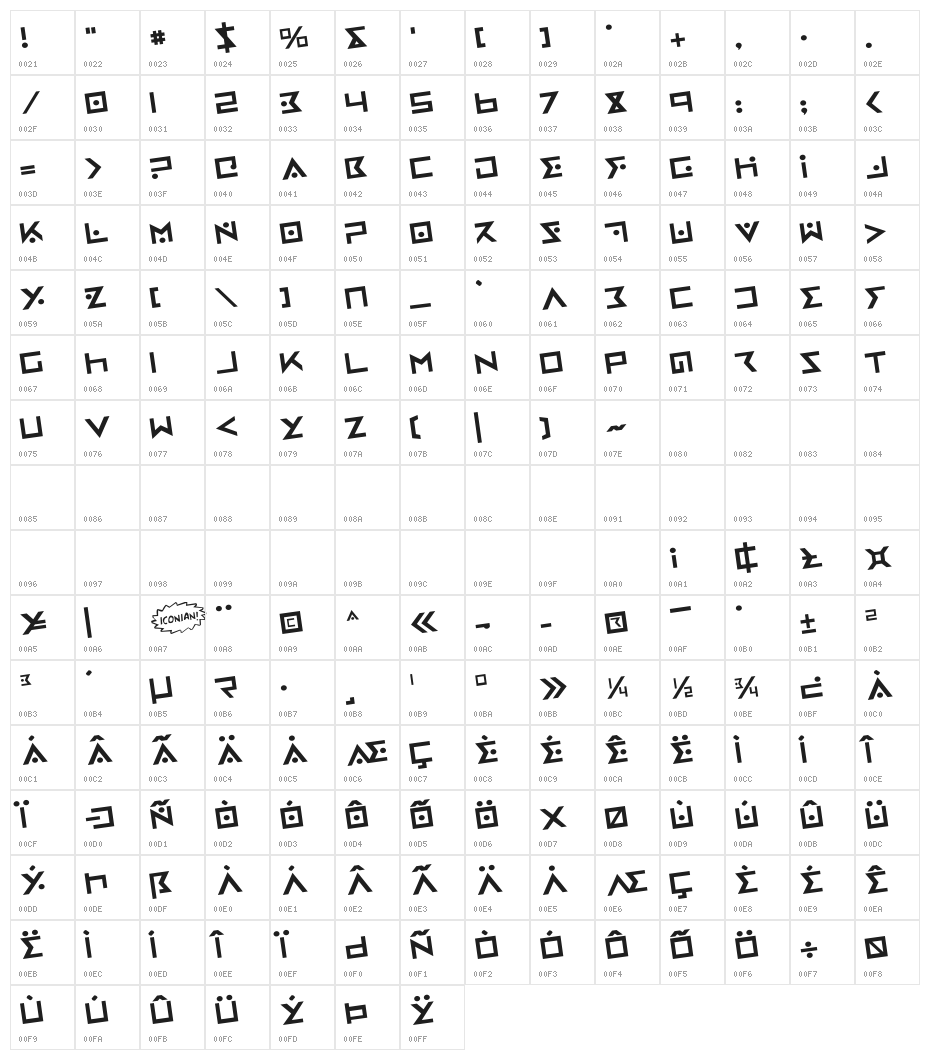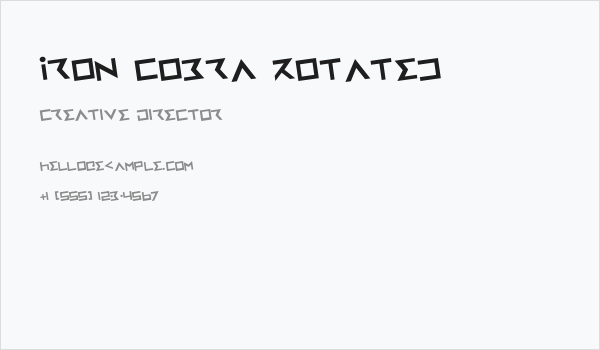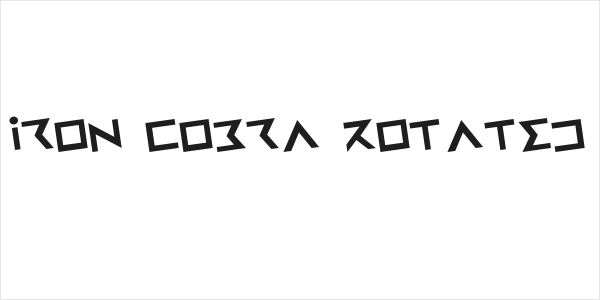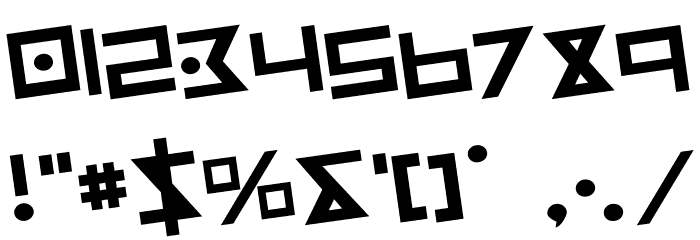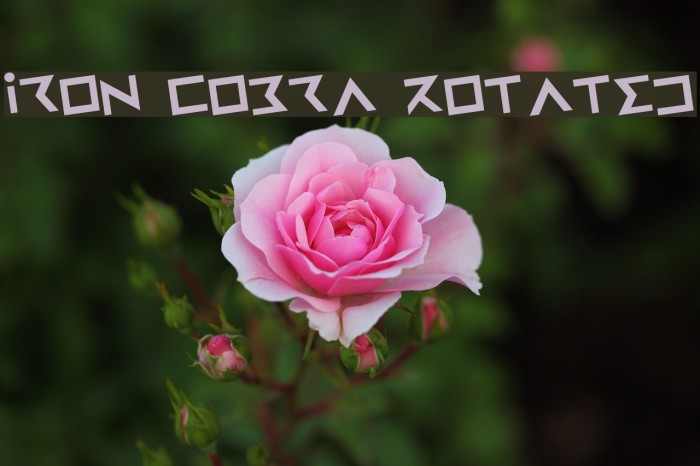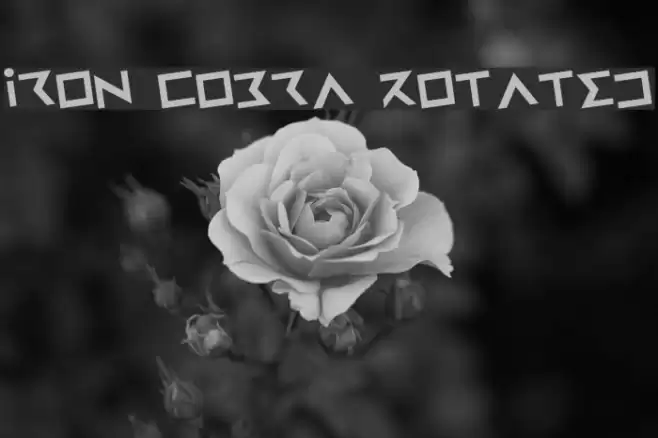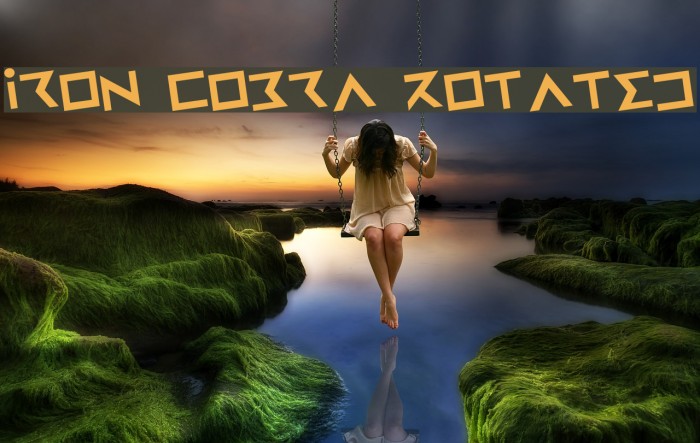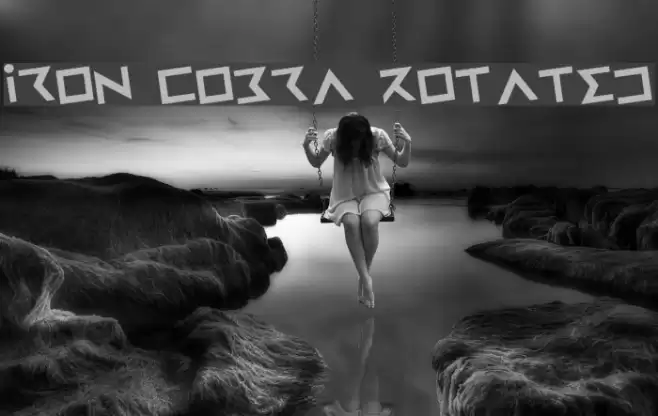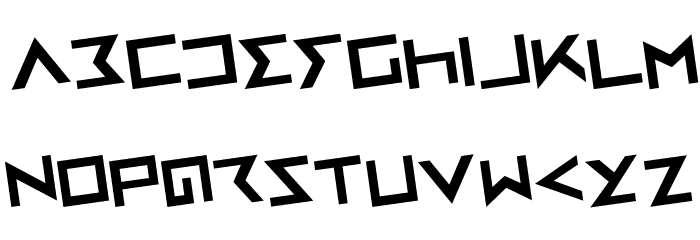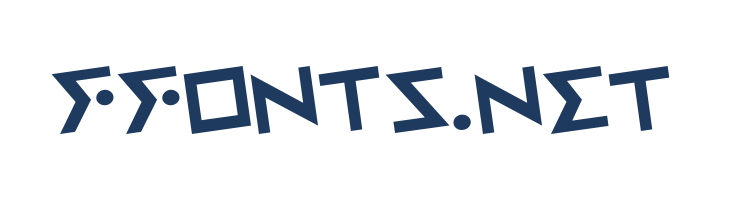
Iron Cobra Rotated Font
This font features a bold, angular design with a futuristic and geometric aesthetic. The characters are constructed with sharp edges and distinct angles, giving them a dynamic and aggressive appearance. The uppercase and lowercase letters maintain a consistent style, with unique embellishments such as dots and slashes that add to the font's distinctive look. The numerals and special characters follow the same design principles, ensuring a cohesive visual identity across all glyphs. This font is ideal for projects that require a strong, impactful presence.
| Proposed Projects | Ideal for sci-fi themed designs, video game titles, posters, and branding that requires a strong, modern aesthetic. |